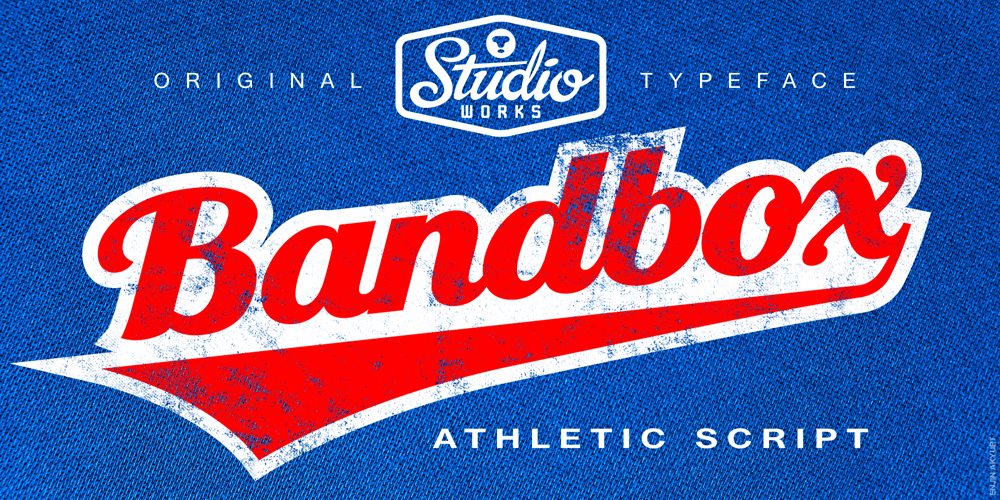
Bandbox Font Family was designed by Sean Thorenson and published by Sean Thorenson. Bandbox contains 1 styles and family package options. Inspired by classic sport logo lock-ups, Bandbox delivers with its heavy, streaming cursive letterforms. Bandbox’s wide, gently-sloped script comes bundled with a collection of ligatures and 18 athletic swash banners, perfect for logotype, posters and t-shirt designs.Here’s what’s included in the single-weight typeface Bandbox: Upper (A-Z) and lower case (a-z) characters Numbers (0-9) Standard punctuation and glyphs Alternates, Ligatures and Swashes Multilingual support